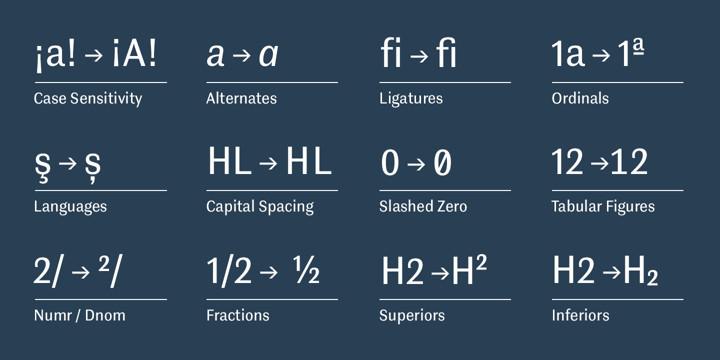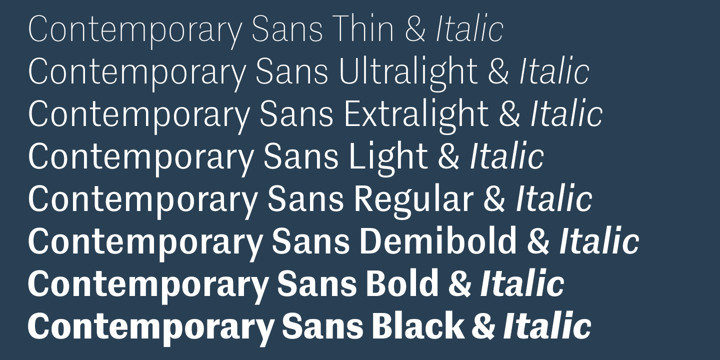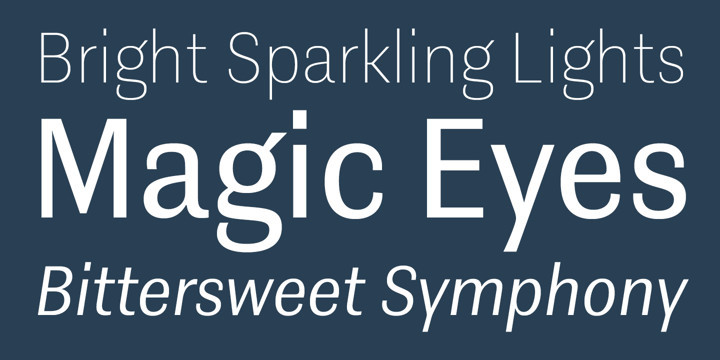
Contemporary Sans Font Family
Contemporary Sans Font FamilyContemporary Sans is a unique grotesque with a distinct contrast between its horizontal and vertical strokes that gives it a lively and elegant appearance. Friendly, subtly formed strokes and individual letter forms make it both legible and pleasant to read at small sizes, and striking at display sizes. Its narrow proportions make it a very easily useable typeface, particularly for narrow columns or tight headlines. It is suited to a wide range of applications, from corporate to editorial design, where a clear and distinctive impression is required. Visit this minisite to see the Contemporary Sans webfonts in action.